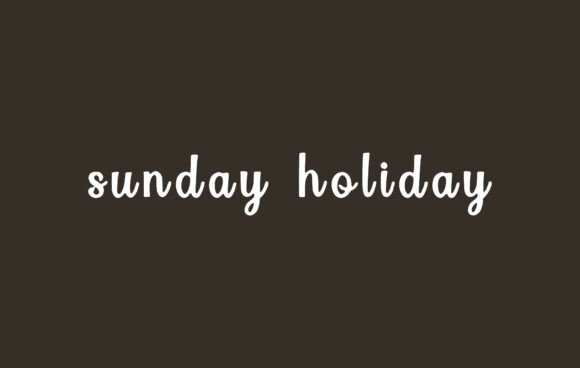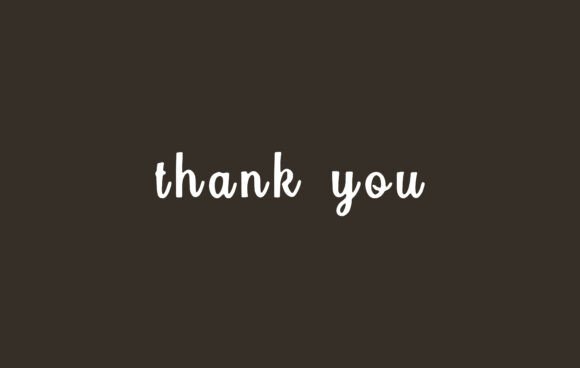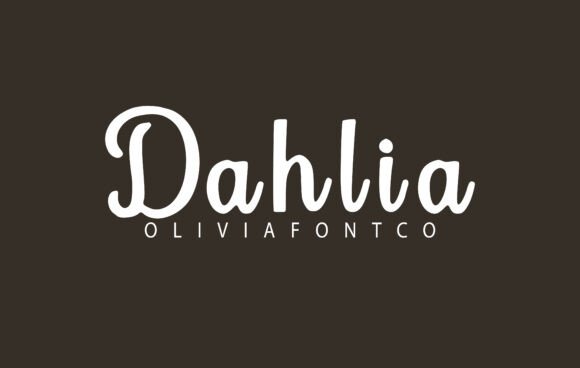
Dahlia Font: Elevate Your Branding with a Touch of Whimsy
In the world of typography, fonts play a crucial role in conveying the tone and personality of a brand. For designers and crafters looking to add a personal touch to their branding, packaging, or blog, the Dahlia font is an excellent choice. This beautiful font combines the elegance of script-like forms with the structure of a serif, making it perfect for those seeking a unique and modern edge.
The Charm of Dahlia Font
Dahlia font is a masterful blend of swirly terminals and casual posture, giving it a joyful and lively feel. Its script-like forms evoke a sense of whimsy and playfulness, while the serif structure provides a level of sophistication and elegance. This combination makes Dahlia an ideal choice for brands looking to convey a sense of friendliness and approachability.
Perfect for Product Packaging
Product packaging is an essential aspect of branding, as it provides a tangible representation of a brand’s personality. Dahlia font is well-suited for product packaging due to its unique blend of elegance and playfulness. Whether you’re designing labels for food products, cosmetics, or handmade crafts, Dahlia font adds a touch of sophistication and charm. Its swirly terminals and casual posture make it an excellent choice for brands looking to stand out on store shelves.
Ideal for Blogs and Lifestyle Branding
In the world of blogging and lifestyle branding, typography plays a crucial role in establishing a brand’s tone and personality. Dahlia font is perfect for bloggers and lifestyle brands looking to add a soft, modern edge to their online presence. Its elegant script-like forms and casual posture make it an excellent choice for blog headers, titles, and even body text. Whether you’re writing about fashion, beauty, or lifestyle, Dahlia font helps to create a warm and inviting atmosphere that engages readers.
Key Features of Dahlia Font
- Script-like forms: Dahlia font features elegant script-like forms that add a touch of whimsy and playfulness to any design.
- Serif structure: The serif structure provides a level of sophistication and elegance, making Dahlia font perfect for brands looking to convey a sense of refinement.
- Swirly terminals: The swirly terminals add a touch of playfulness and joy to any design, making Dahlia font ideal for brands looking to stand out.
- Casual posture: The casual posture of Dahlia font creates a warm and inviting atmosphere, perfect for brands looking to establish a friendly tone.
Tips for Using Dahlia Font
To get the most out of Dahlia font, here are a few tips to keep in mind:
- Use it as a headline font: Dahlia font is perfect for headlines and titles, where its elegant script-like forms and swirly terminals can shine.
- Pair it with a sans-serif font: Pairing Dahlia font with a sans-serif font creates a beautiful contrast that adds visual interest to any design.
- Experiment with colors: Dahlia font looks stunning in a variety of colors, from soft pastels to bold brights. Experiment with different colors to find the perfect combination for your brand.
In conclusion, Dahlia font is a beautiful and versatile font that combines the charm of script-like forms with the structure of a serif. Its swirly terminals and casual posture make it an ideal choice for brands looking to add a personal, joyful flair to their branding, packaging, or blog. With its elegant script-like forms, sophisticated serif structure, and playful swirly terminals, Dahlia font is perfect for designers and crafters looking to elevate their branding and create a lasting impression.